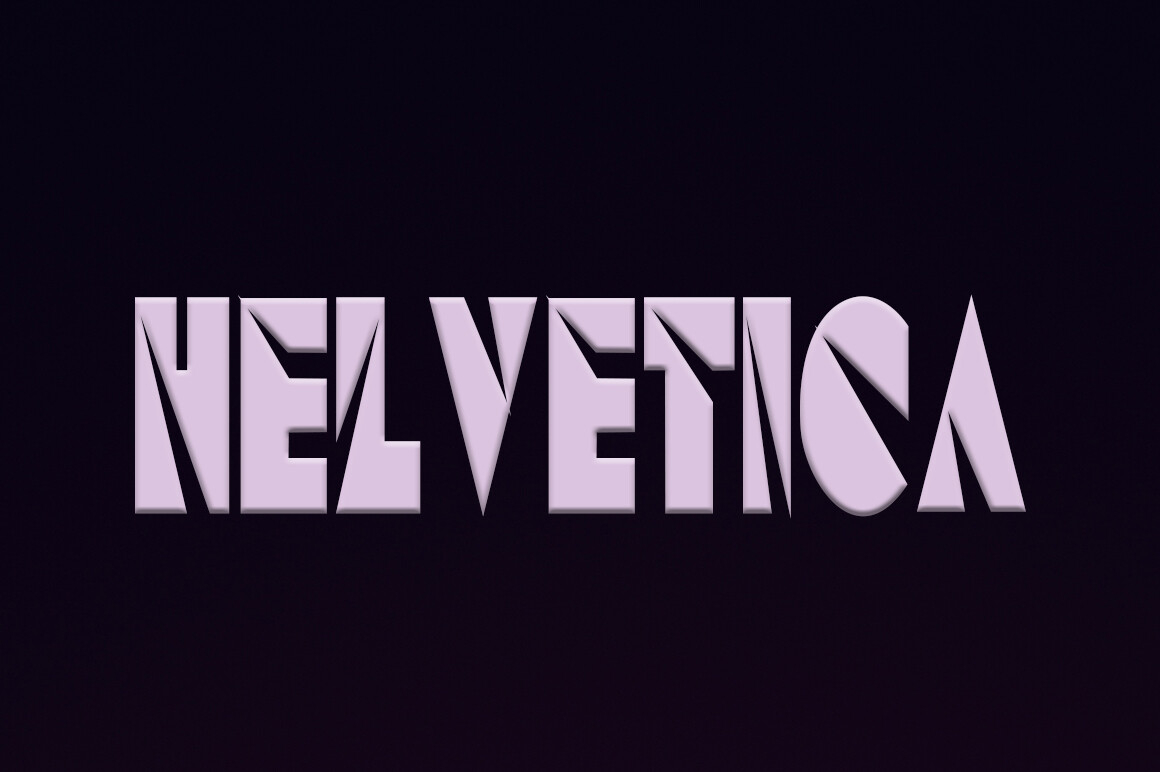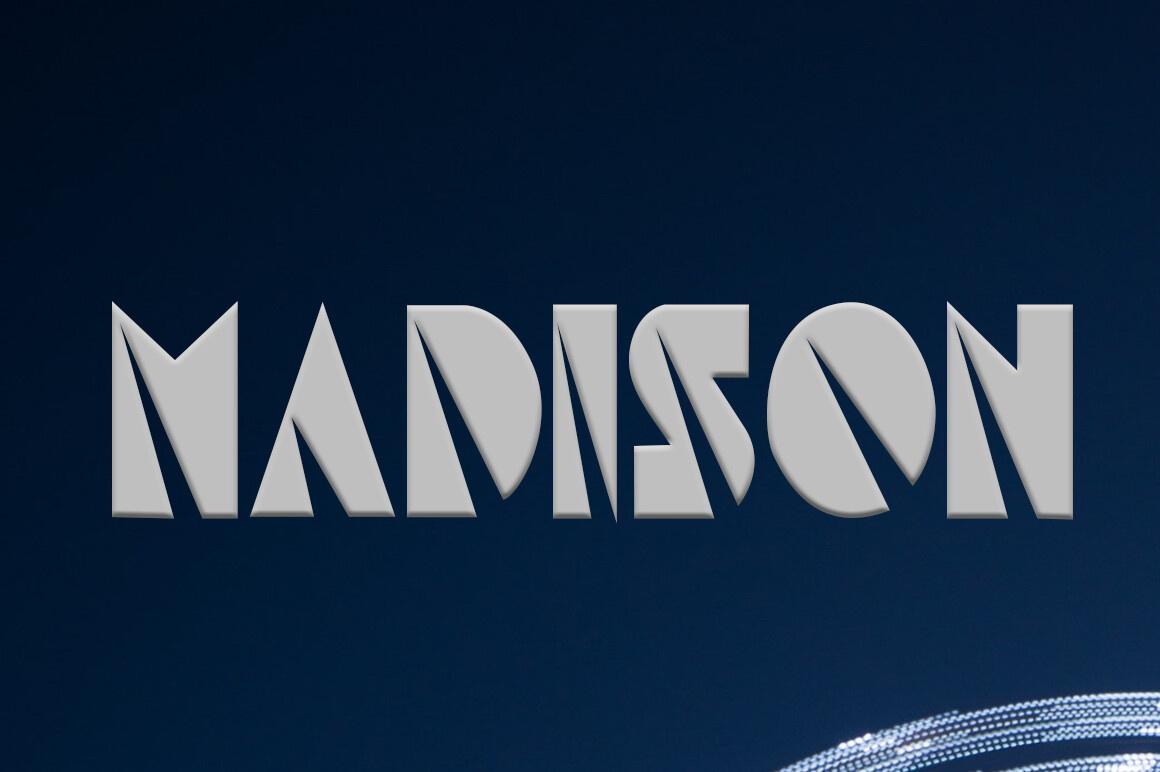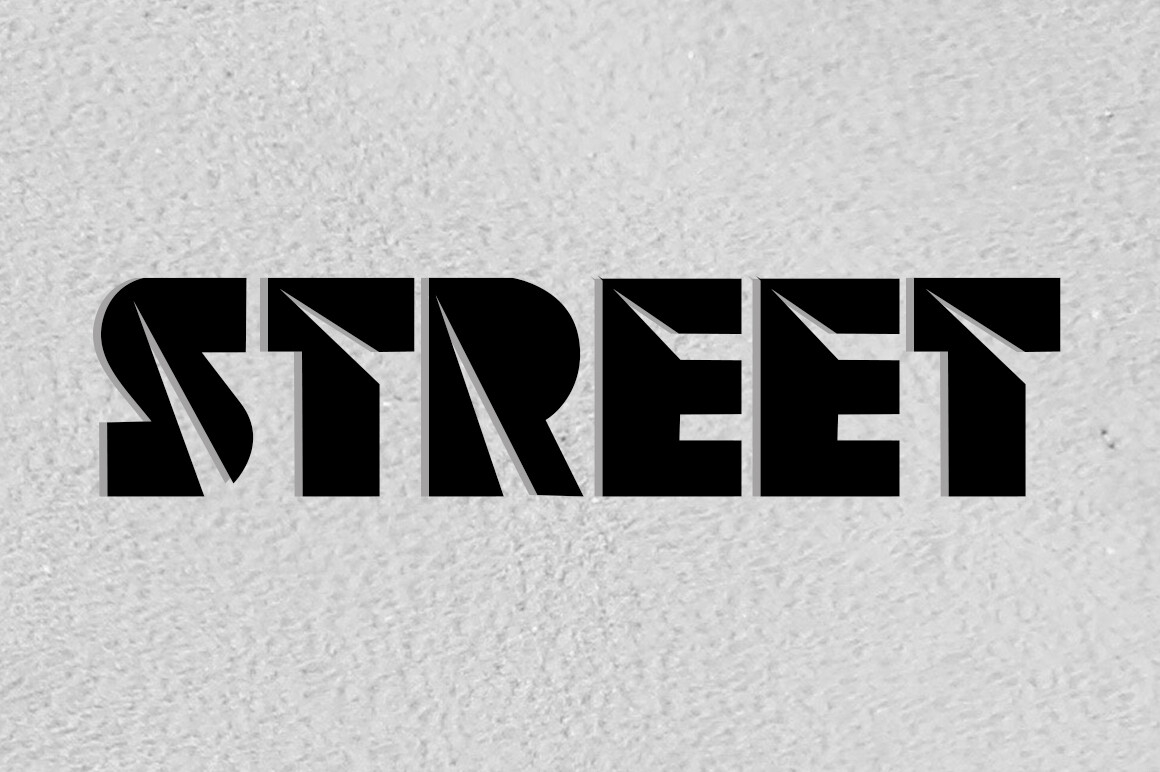
Nelvetica Font
About Nelvetica Font
Nelvetica is a stylish and bold blackletter font. Nelvetica offers beautiful typographic harmony for a diversity of design projects, including logos and branding, social media posts, advertisements or product designs.